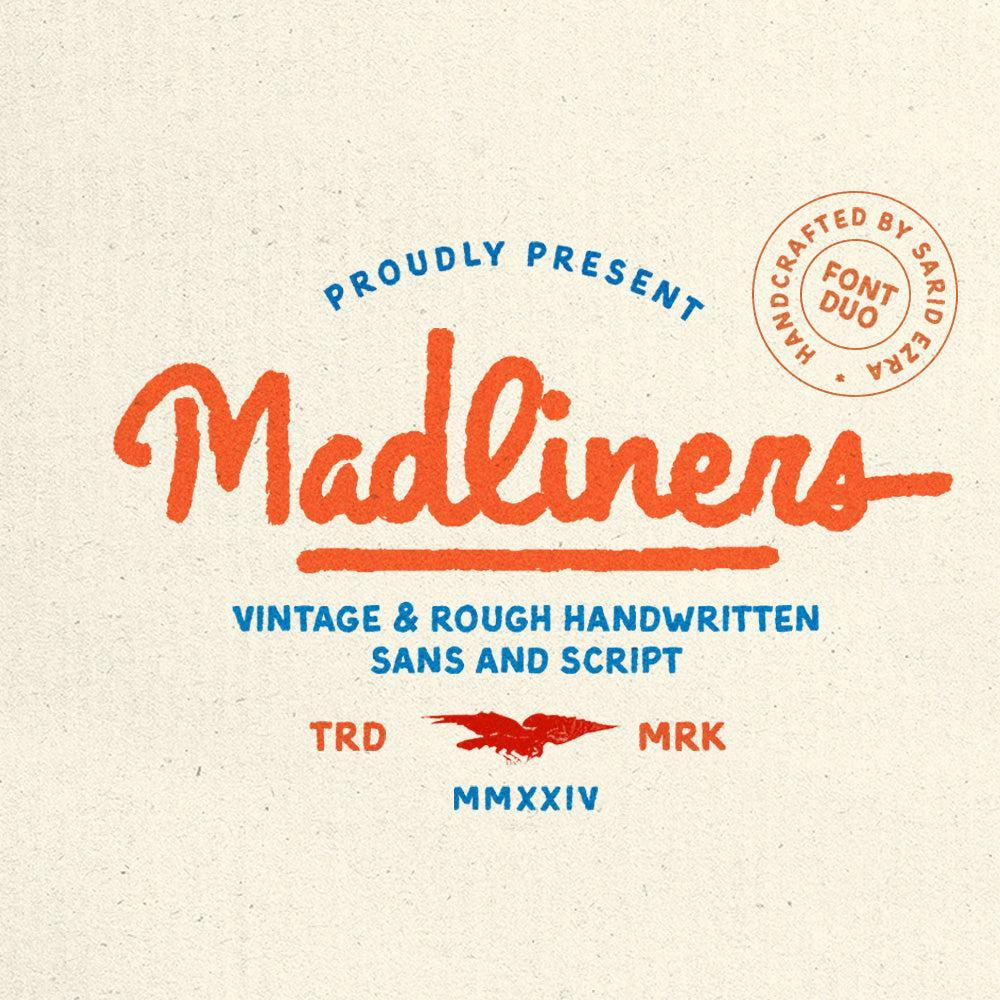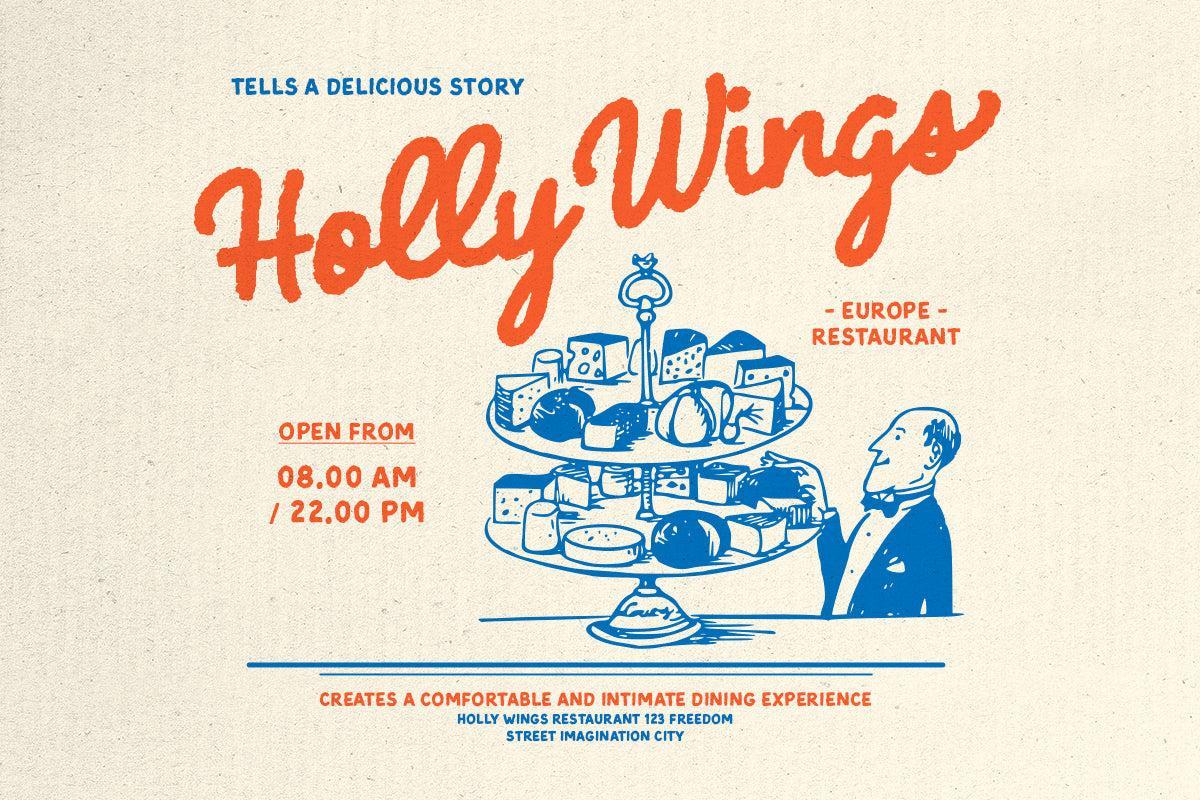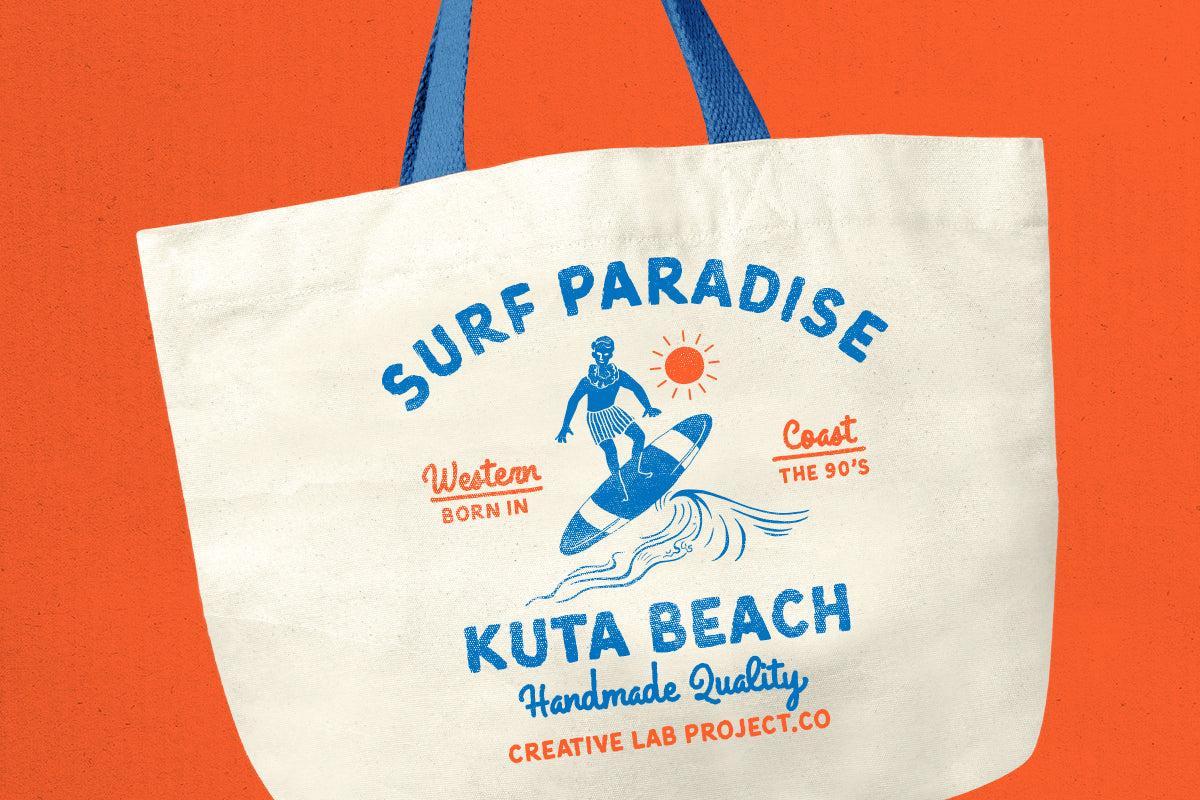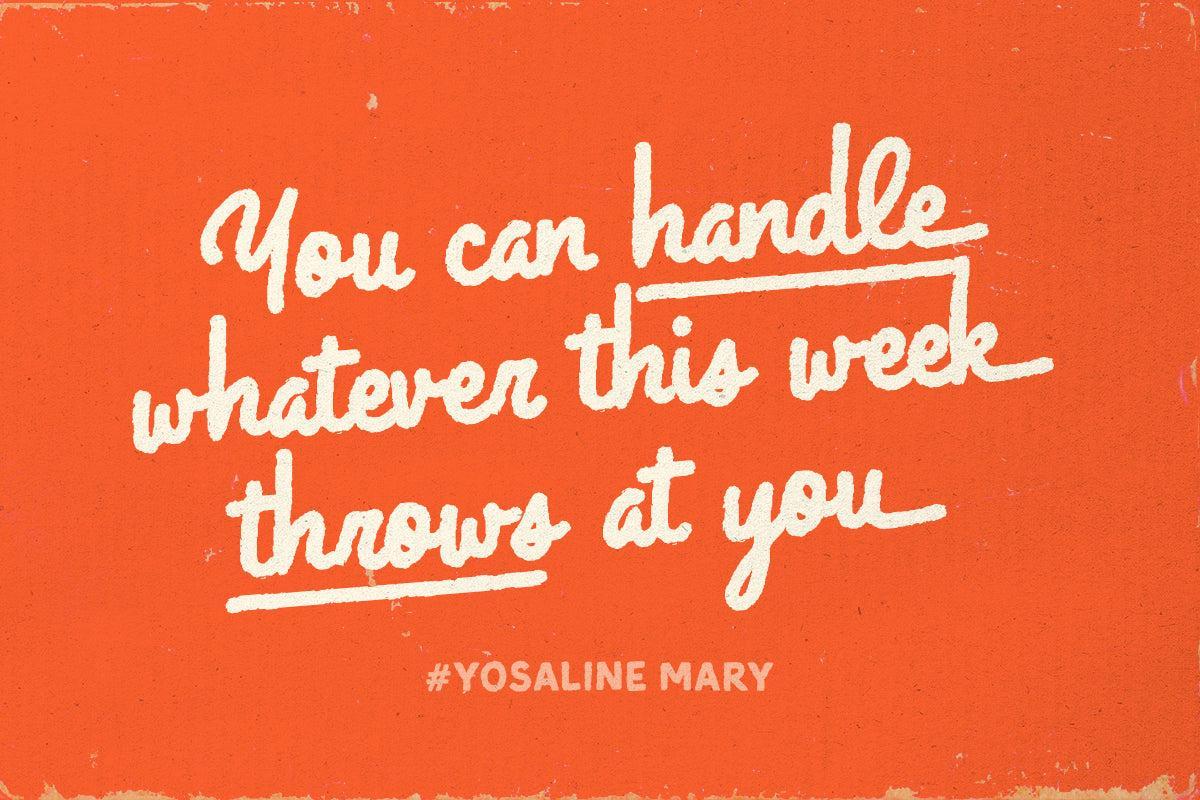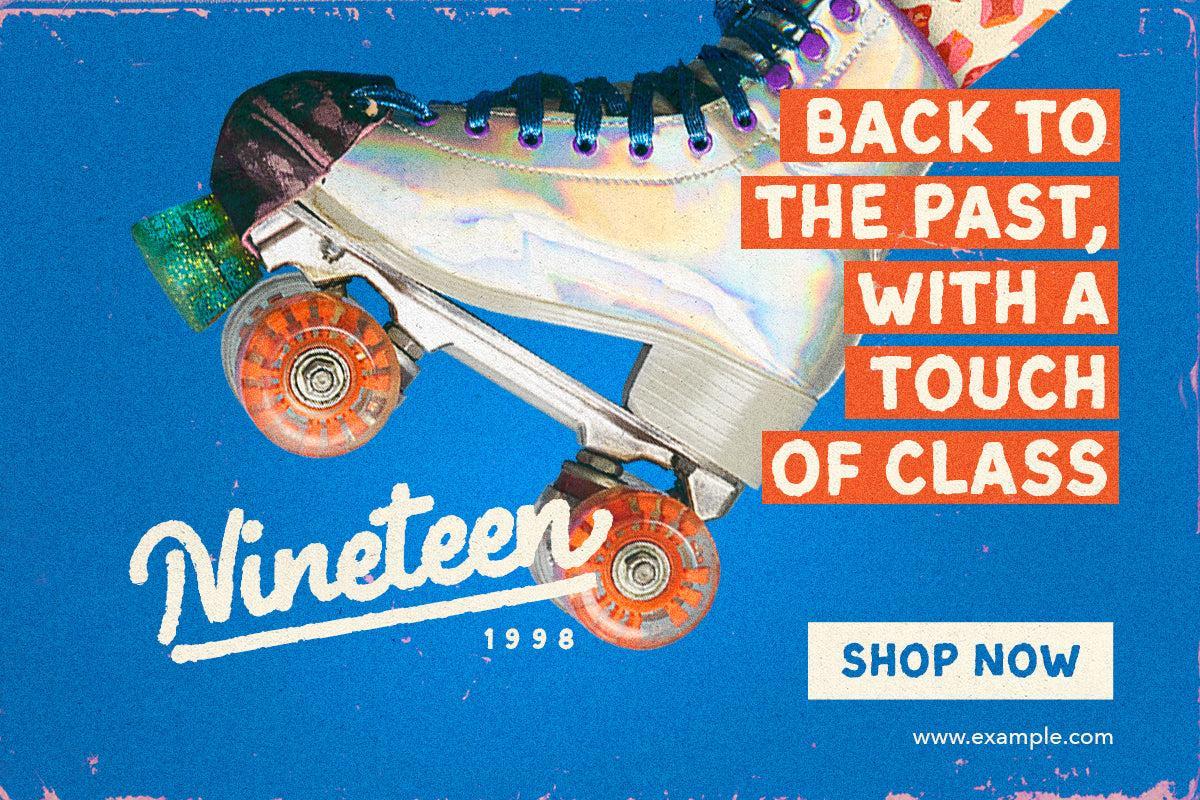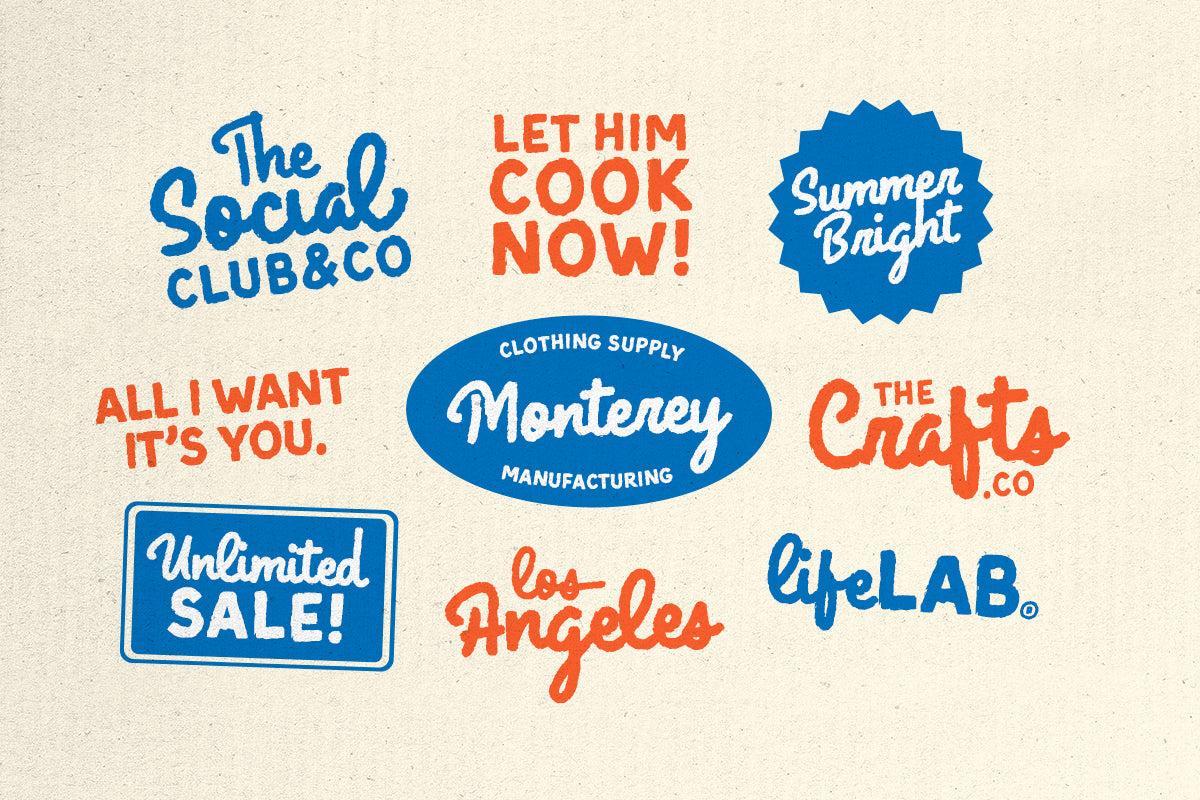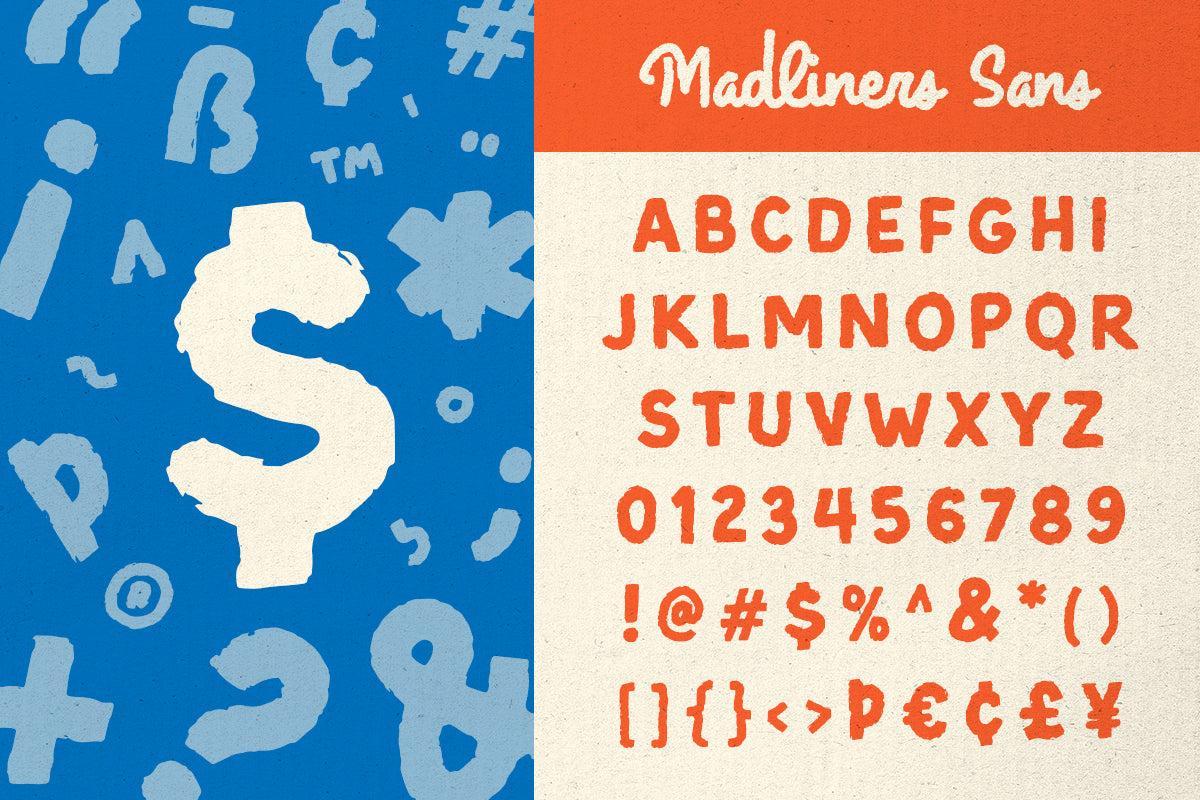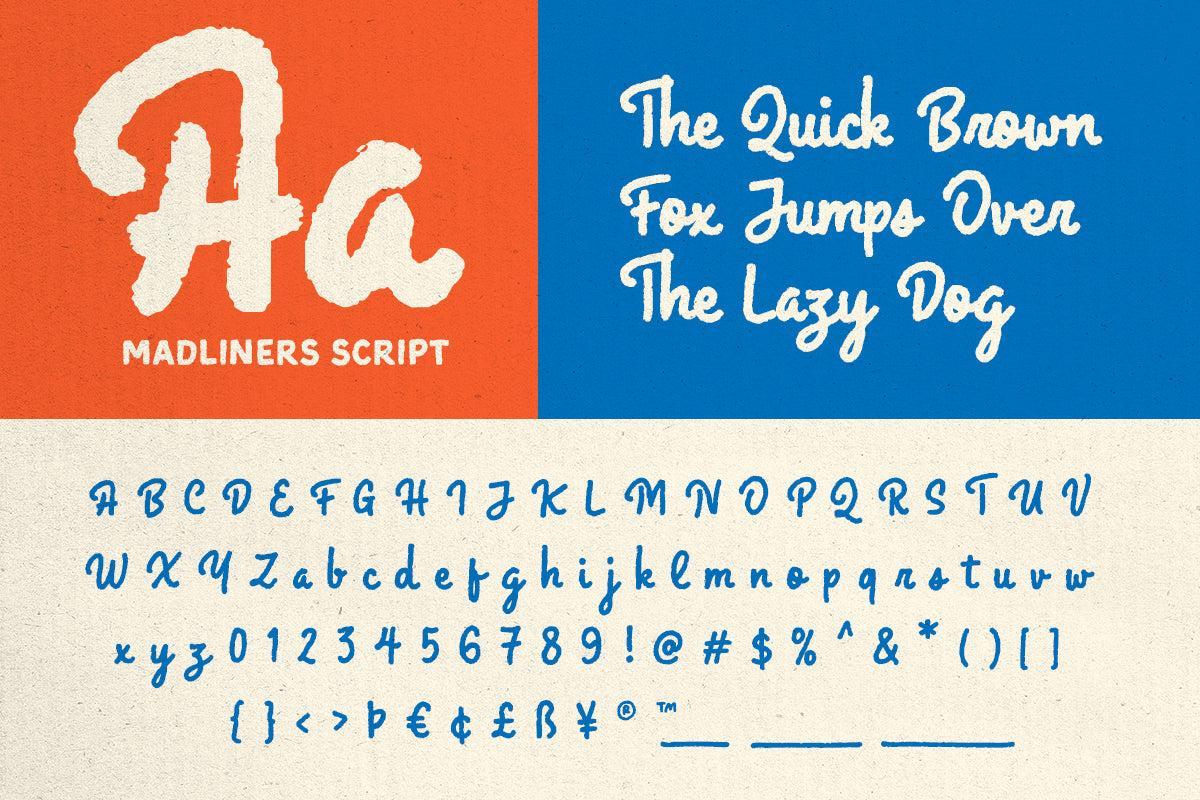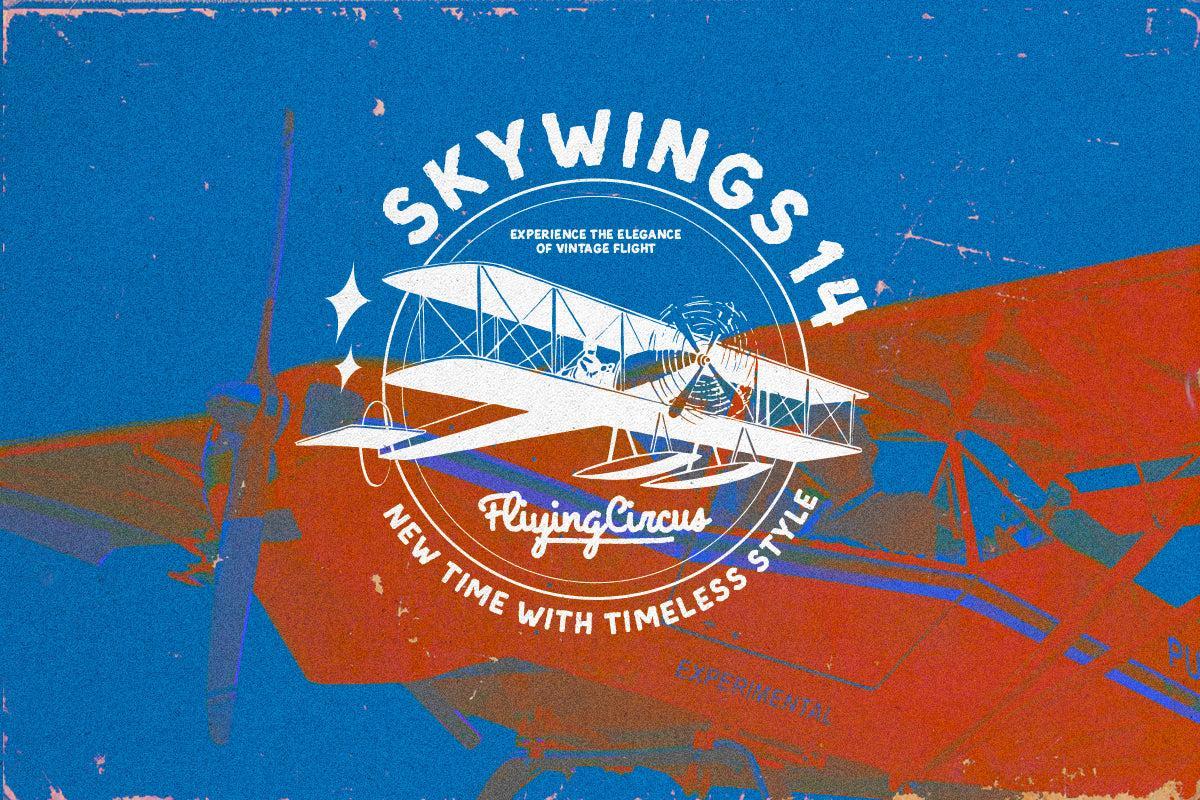
Madliners - Rough Font Duo
Introducing, Madliners, rough font duo!
Madliners is a handcrafted monoline font duo contains Script and Sans Serif with rough and vintage looks. You can easily make logotype or badge for your outdoor or adventure logo with this font combinations. It's also great for quotes. You can use this font duo for any purposes that need natural and handmade looks! Madliners also support multi language!
Madliners - Rough Font Duo is a handcrafted monoline font set that includes both Script and Sans Serif styles, featuring a rough and vintage appearance. This font duo supports multiple languages and is suitable for projects requiring a natural and handmade aesthetic.